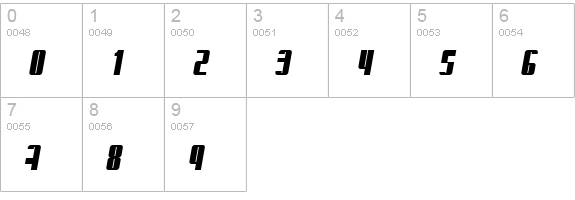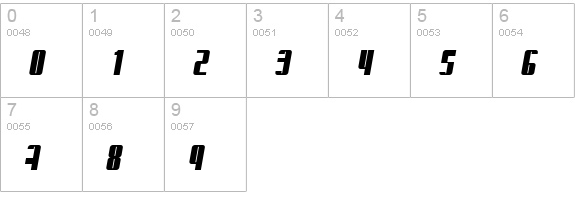
Glaring Italic is a distinctive, italic variant in the Glaring typeface family \xE2\x80\x94 well suited to design and typography projects.
Glaring Italic font is a striking and stylish typeface that exudes modern elegance and sophistication. With its bold yet graceful slanted design, Glaring Italic is perfect for adding a touch of flair and individuality to any project or design. Whether used for headlines, titles, or branding, this font demands attention and leaves a lasting impression. What's even better is that Glaring Italic is available for free download at FontsMarket.com. This means you can easily access and use this eye-catching font in your projects without any cost involved. Don't miss out on the opportunity to enhance your designs with the captivating allure of Glaring Italic font - download it now and let your creativity shine.